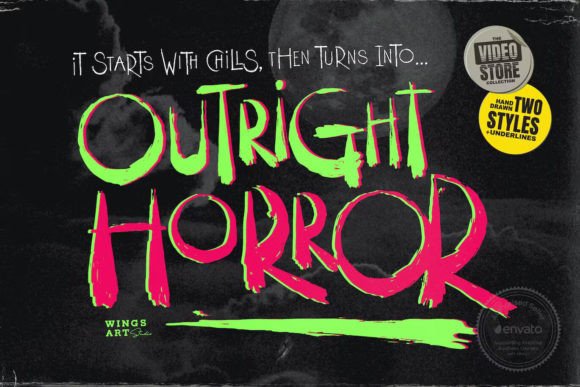
Introducing the spine-chilling and bone-chilling Outright Horror Font! Created by the talented Roman Caseru, this font is guaranteed to send shivers down your spine and make your designs scream with terror.
Perfectly suited for title credits, this font family is a must-have for anyone looking to make a lasting impact. With its all-caps scratched style font and a touch of Art Deco, Outright Horror exudes a sense of darkness and mystery that will captivate your audience.
But that's not all – this font also comes with a daring brush font that takes the fear factor to a whole new level. Its bold and contrasting strokes will leave a lasting impression, making it the perfect choice for Halloween-themed designs or any project that requires a touch of horror.
One of the standout features of Outright Horror is its versatility. The Regular style acts as the skeleton, providing a solid foundation for your designs, while the Bold style adds the creeping flesh that will send chills down your spine. This unique combination creates a truly immersive experience for your viewers.
In addition to its captivating style, Outright Horror also offers a range of practical features. With numerals, punctuation, language support, custom underlines, and automatic ligatures, you have all the tools you need to bring your terrifying vision to life. And thanks to its PUA encoding, accessing the extensive library of glyphs and ligatures is a breeze.
When you choose Outright Horror, you're not just investing in a font – you're investing in the power to evoke emotions and create unforgettable designs. Whether you're working on a horror movie poster, a haunted house flyer, or a spine-tingling book cover, this font will ensure that your message is heard loud and clear.